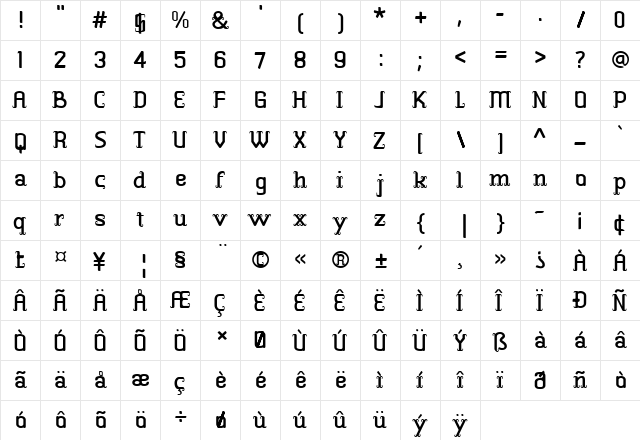
Bhertani Regular
| Designer | Risa AW |
Design Context for Bhertani Typeface
Bhertani takes a measured approach to typography — its balanced proportions and neutral character make it a reliable workhorse for both digital and print work.